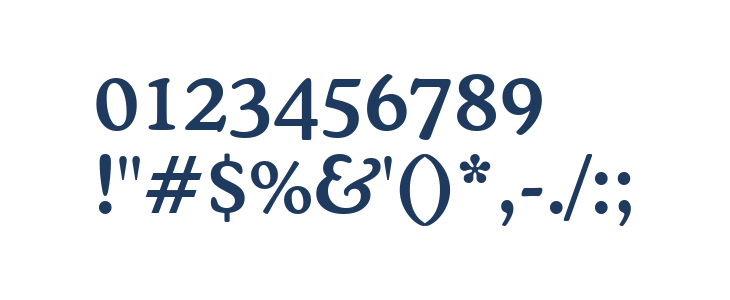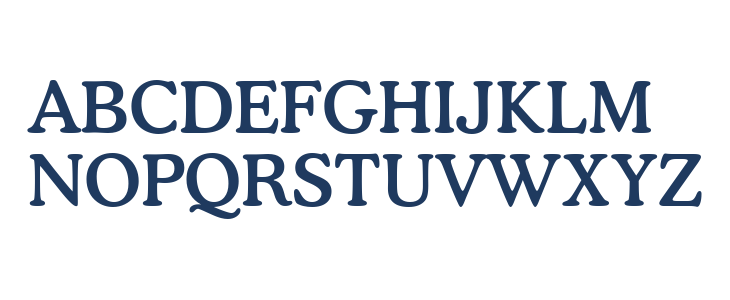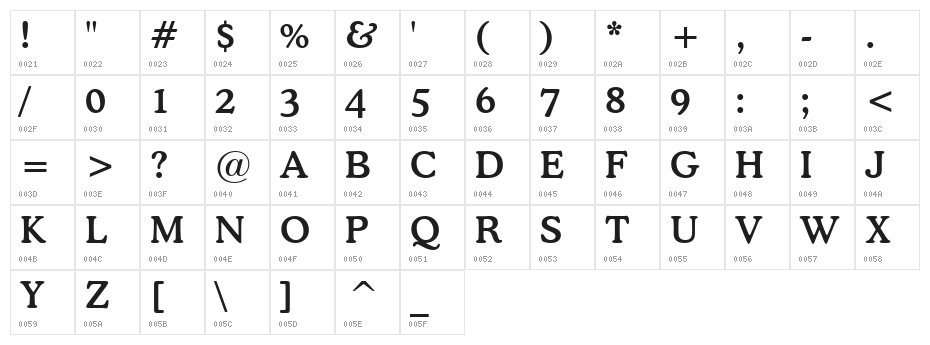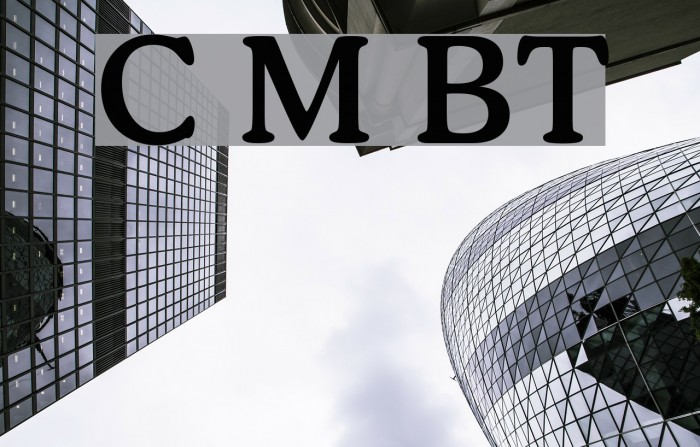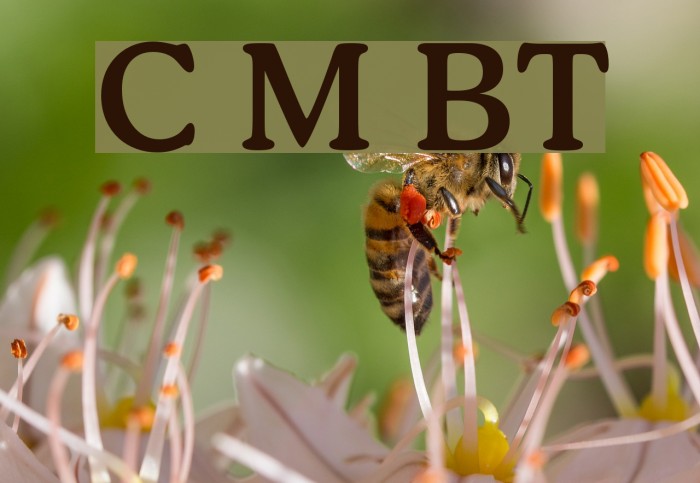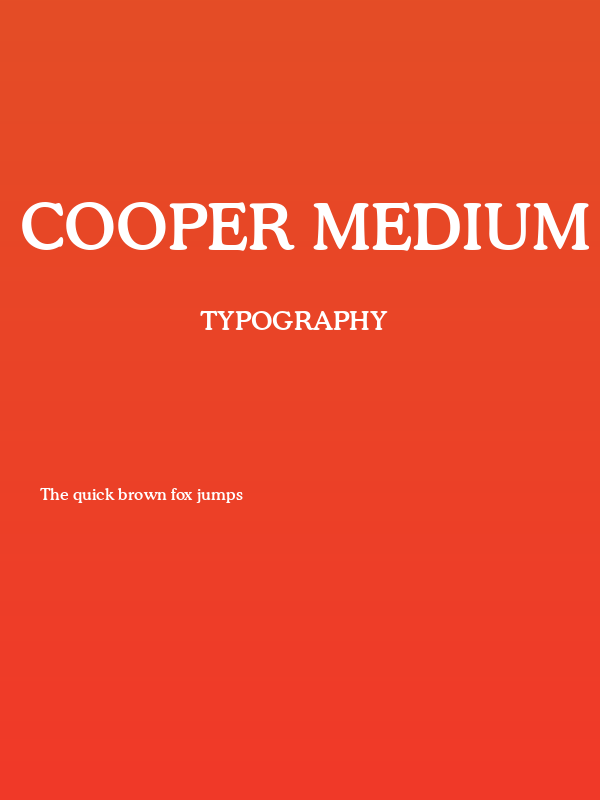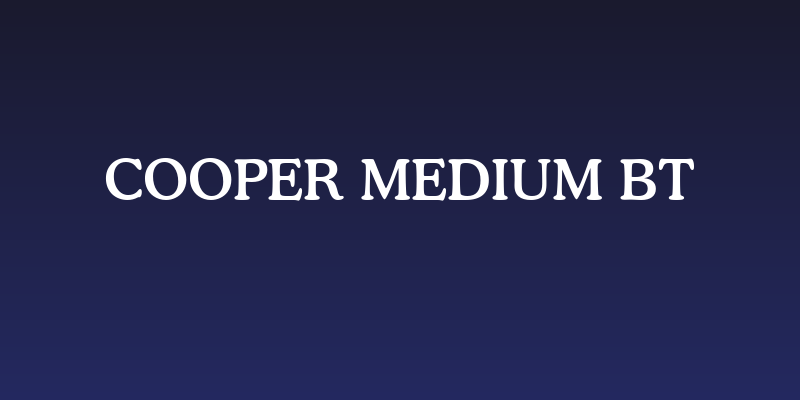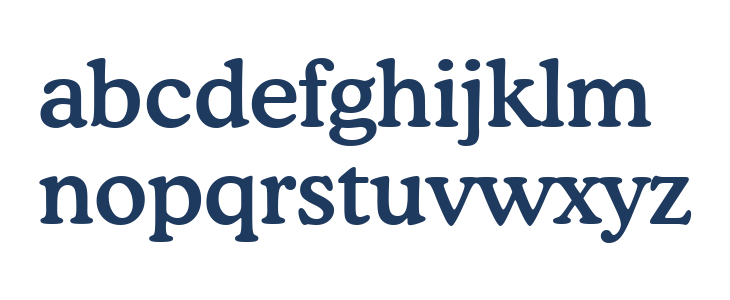
Cooper Medium BT Font
Cooper Medium BT Description
This font features a bold and rounded serif style, characterized by its thick strokes and smooth curves. The letters exhibit a playful yet sophisticated appearance, making it suitable for both formal and informal contexts. The uppercase letters are robust and commanding, while the lowercase letters maintain a friendly and approachable demeanor. The numerals are consistent with the overall style, offering clarity and readability. Special characters are well-integrated, maintaining the font's cohesive look.